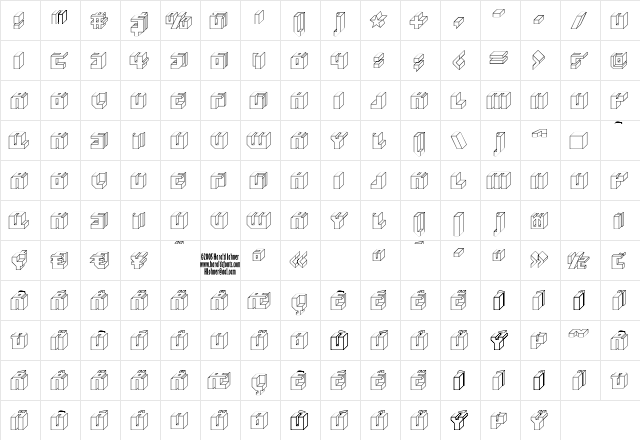
BlockedOutline Regular
Design Context for BlockedOutline Typeface
BlockedOutline brings ornamental detail and strong personality to headlines and identities, where visual impact matters more than quiet functionality.
Font Pairing: Pair with a clean neutral sans-serif for body copy to let BlockedOutline's character lead without overwhelming the composition.
Pro Tip: Treat BlockedOutline as the centrepiece of your typographic hierarchy. One strong heading set in a decorative face can carry an entire layout.